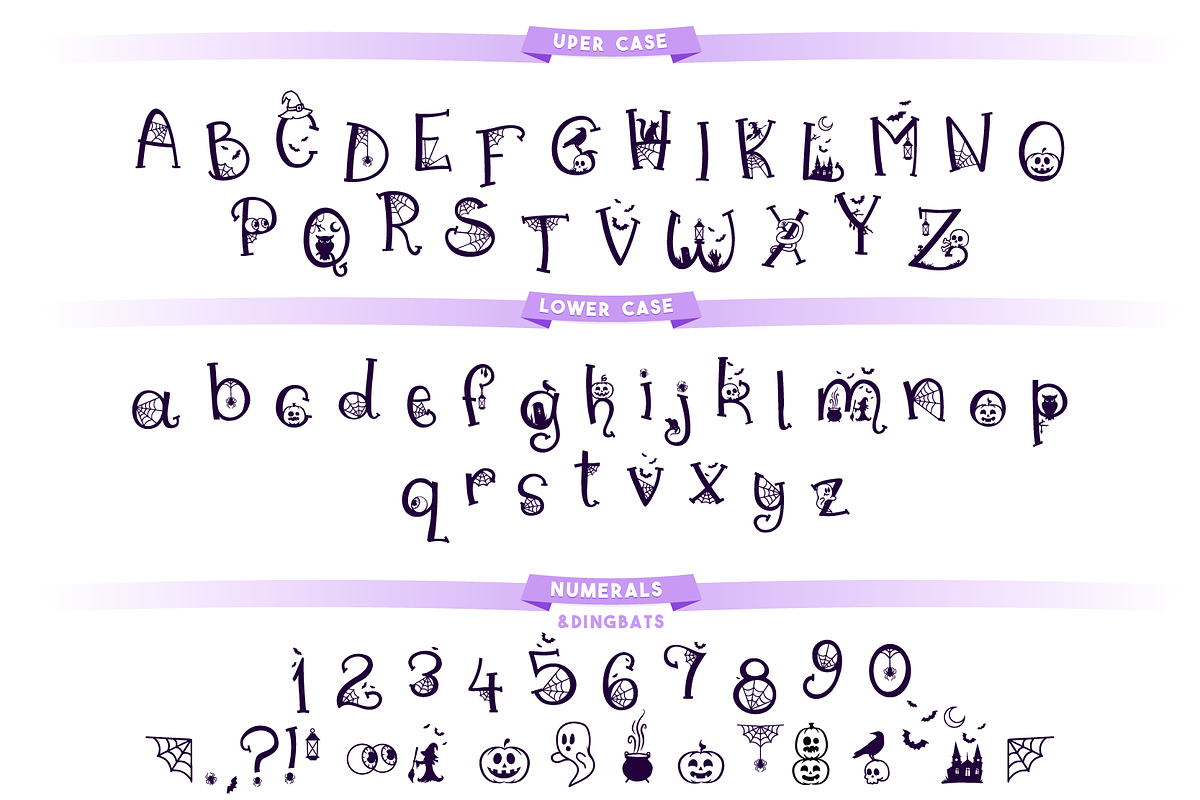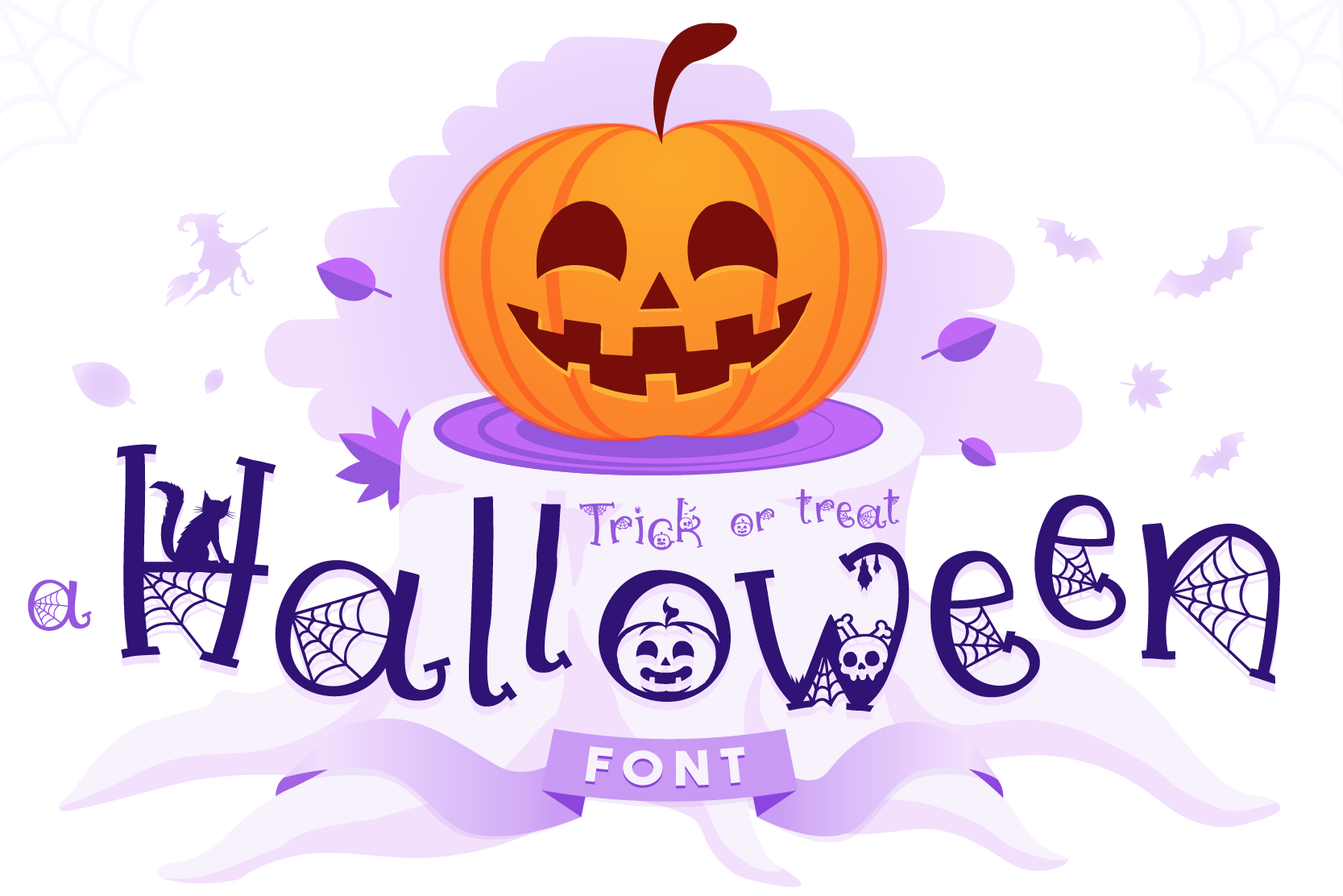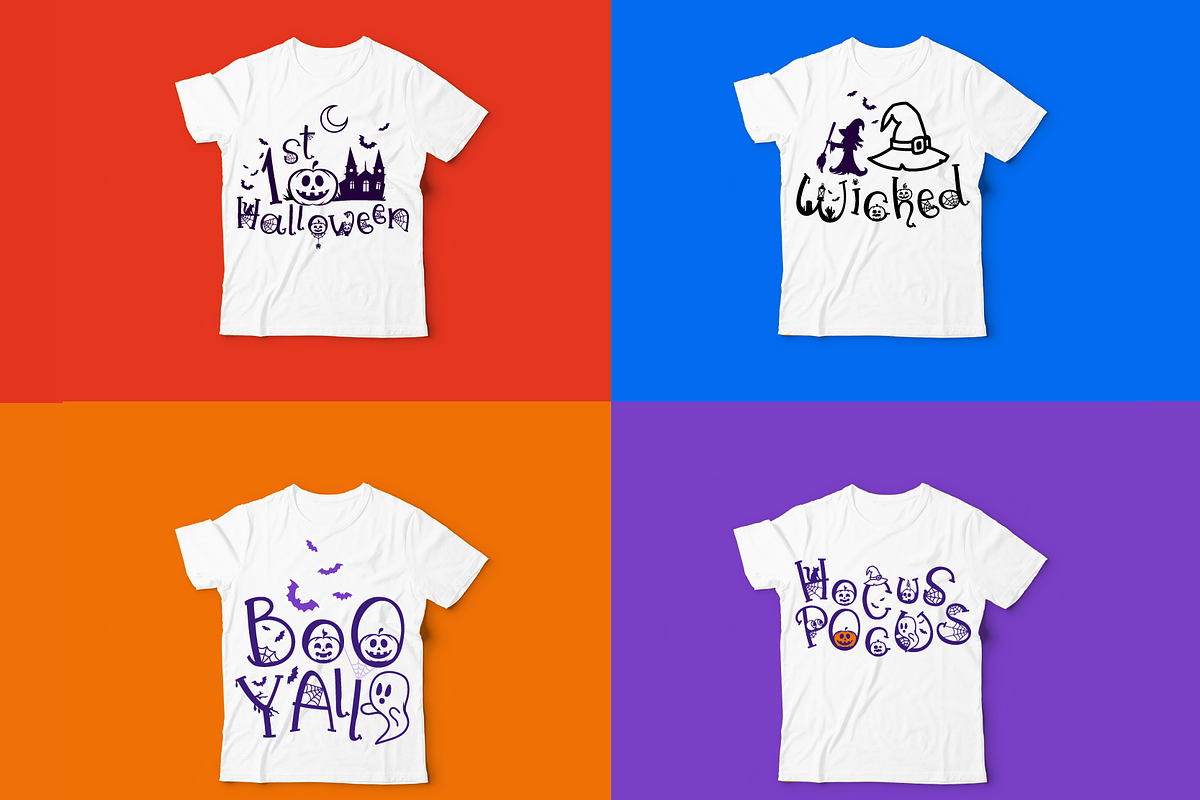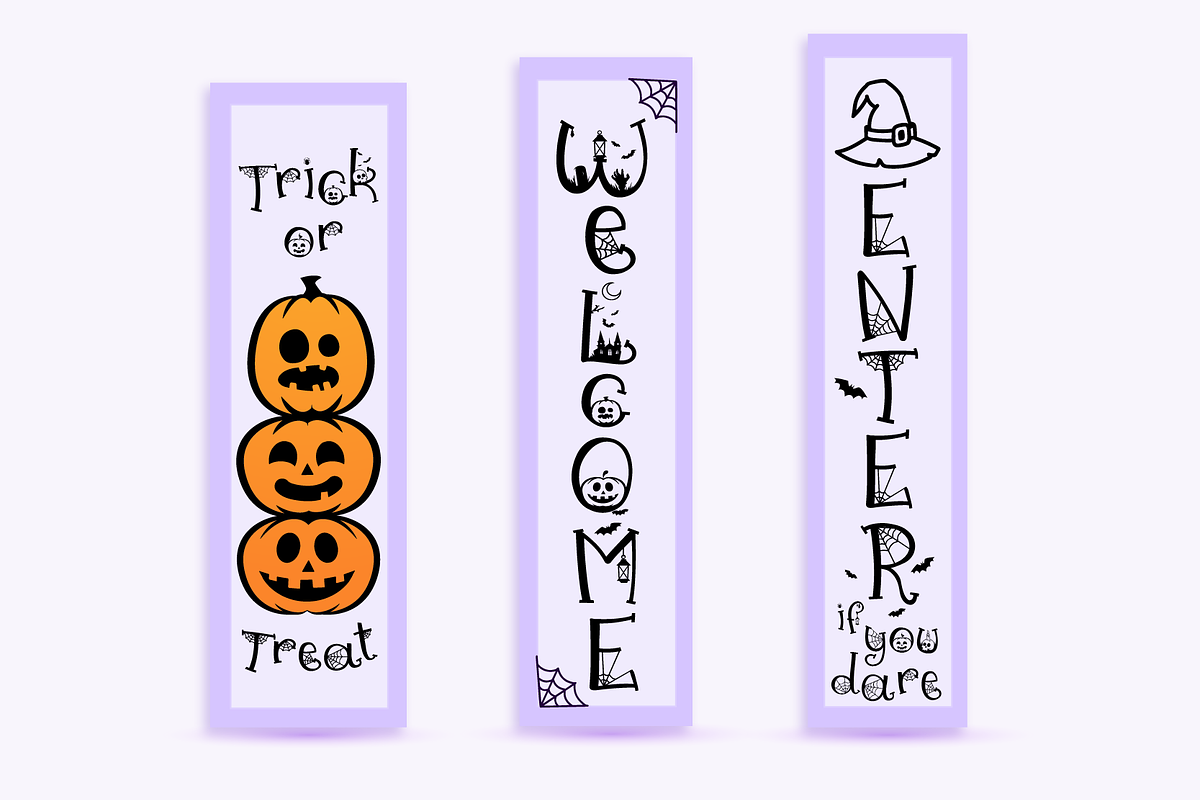
Halloween Font - Trick or Treat
Trick or Treat is a lovely Halloween font that I had in mind for a while. It's a whimsical font with an irregular baseline that allows you to create lovely designs in a matter of seconds!
It can be used as a regular font or as a monogram. Each letter has been thoroughly cleaned, reducing the number of nodes to a minimum.
- Bonus: Haloween Dingbats to spice your designs!